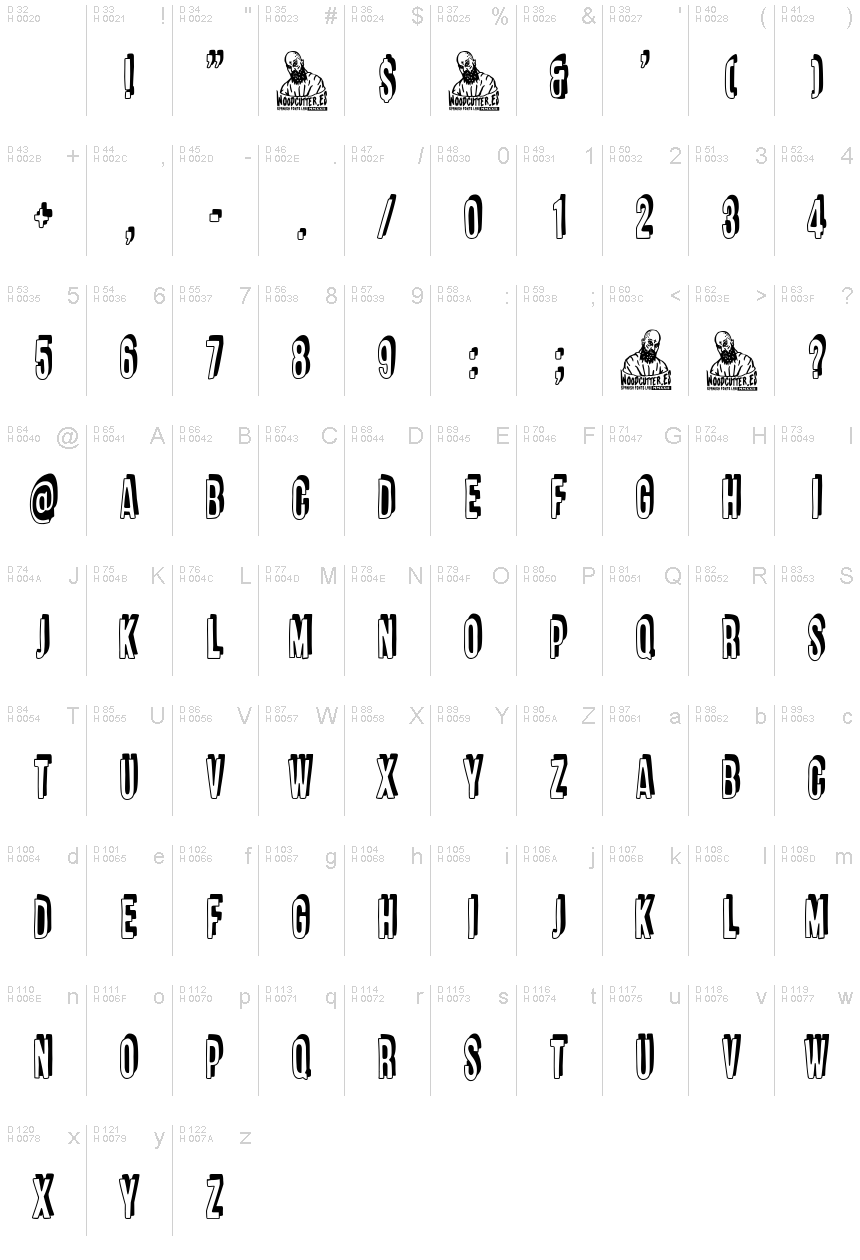
Florida Poster
Florida Poster font is designed by Woodcutter and has been specially crafted as an attention-grabbing font for display purposes. Unique 3D characters will catch the eye of your audience which along with other letters create an illusion of depth. Retro and attention-grabbing – the style of this typeface is meant to make your content achieve recognition regardless of where and how it gets used.
Use Florida Poster for retro poster designs, street or commercial signs, visual identity projects that require a strong logo, advertisements in magazines or newspapers. Try it also in social media post banners, packaging product labels on bottles or cans as well as headers on landing pages.